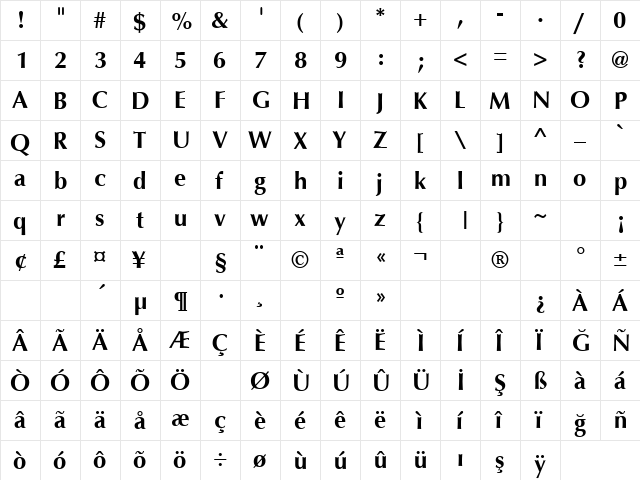
TR Oregon Bold
Design Context for TR Oregon Typeface
TR Oregon is a composed and adaptable typeface that performs quietly and consistently across a wide range of design contexts. Its bold stroke weight gives it real presence on the page.